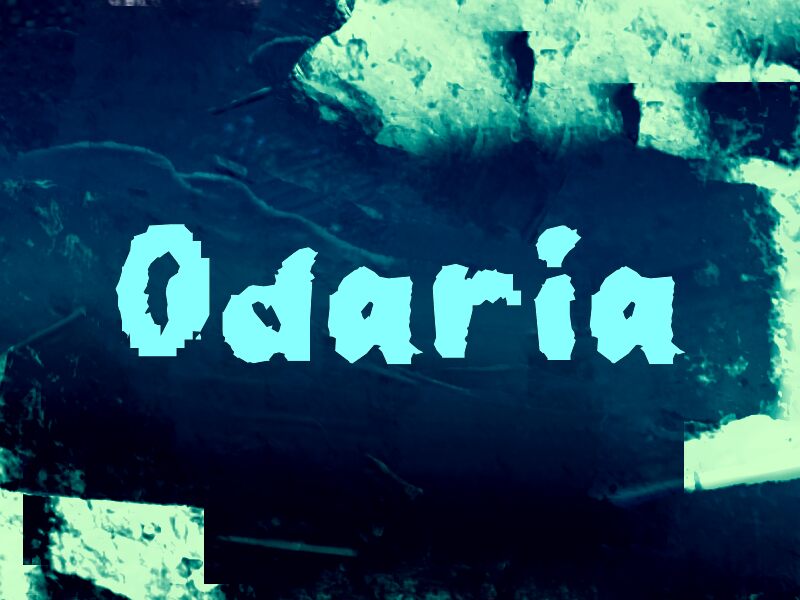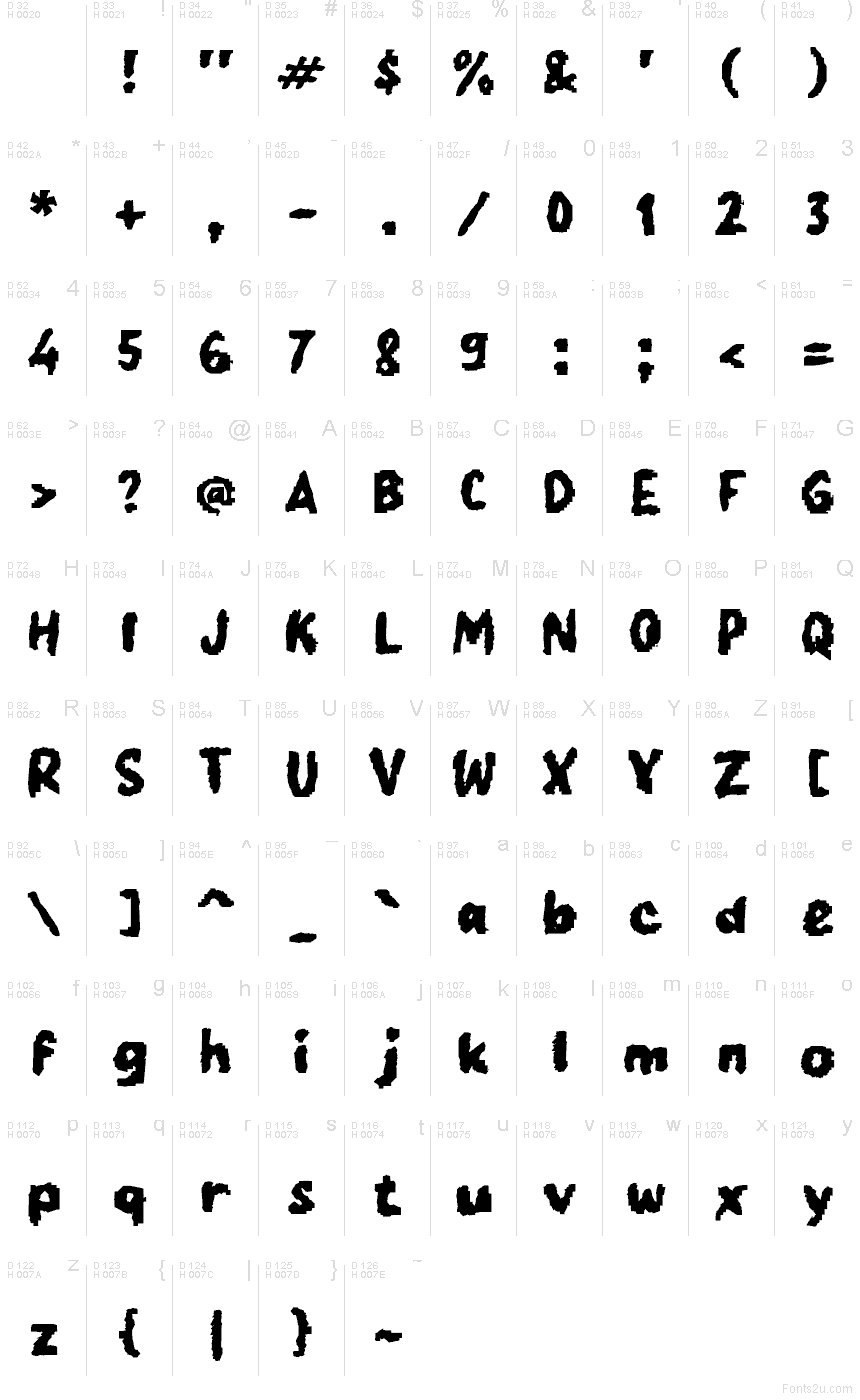
Odaria by Wep is a free brush font shaped by blunt, torn-looking silhouettes that make each letter feel cut from wet ink rather than drawn with a smooth pen. The rough outer edge repeats across the set, giving the lettering a rugged, stamped texture instead of a slick hand-lettered flow.
That makes Odaria a natural choice for poster titles, album art, zine covers, game graphics, and Halloween event pieces where a raw black mass reads better than neat brush script. Short branding lines and merch designs also benefit from its choppy contour, which keeps the font forceful and slightly unruly even in simple layouts.
Odaria